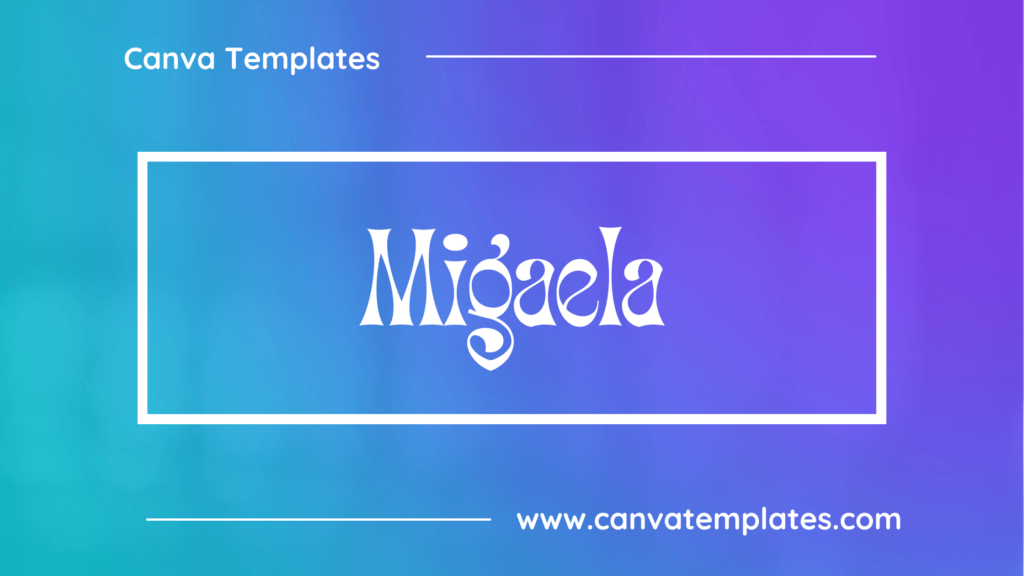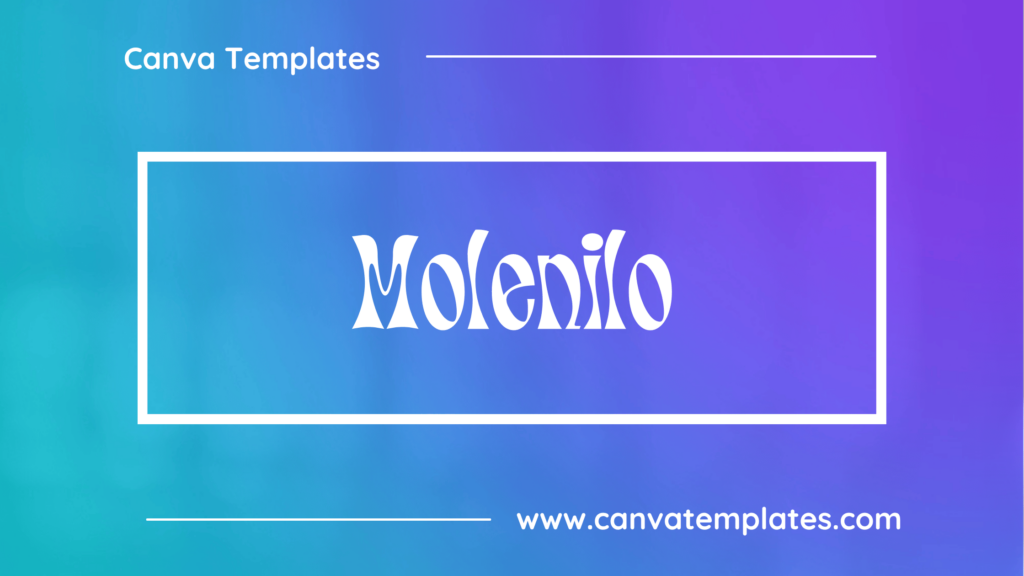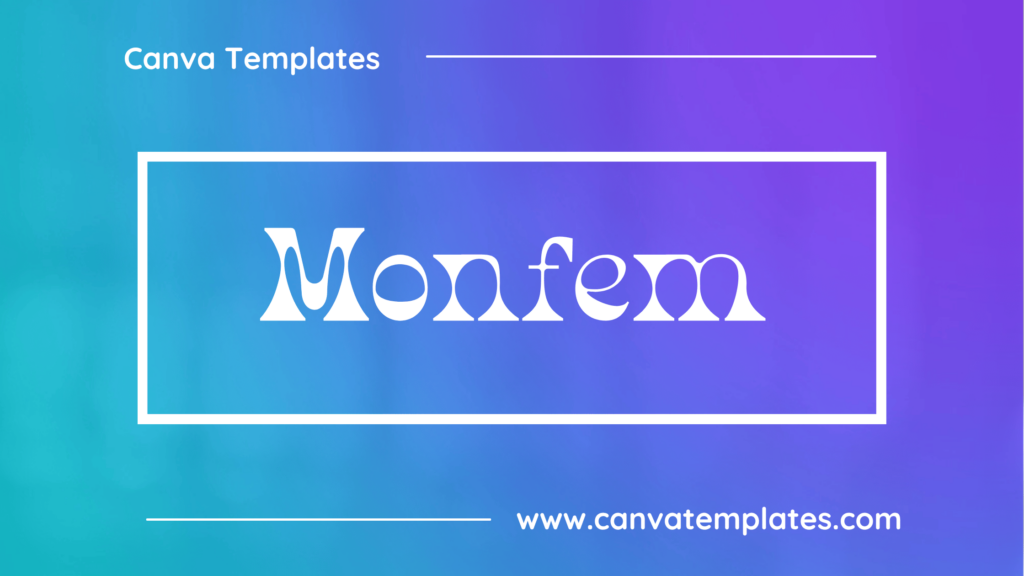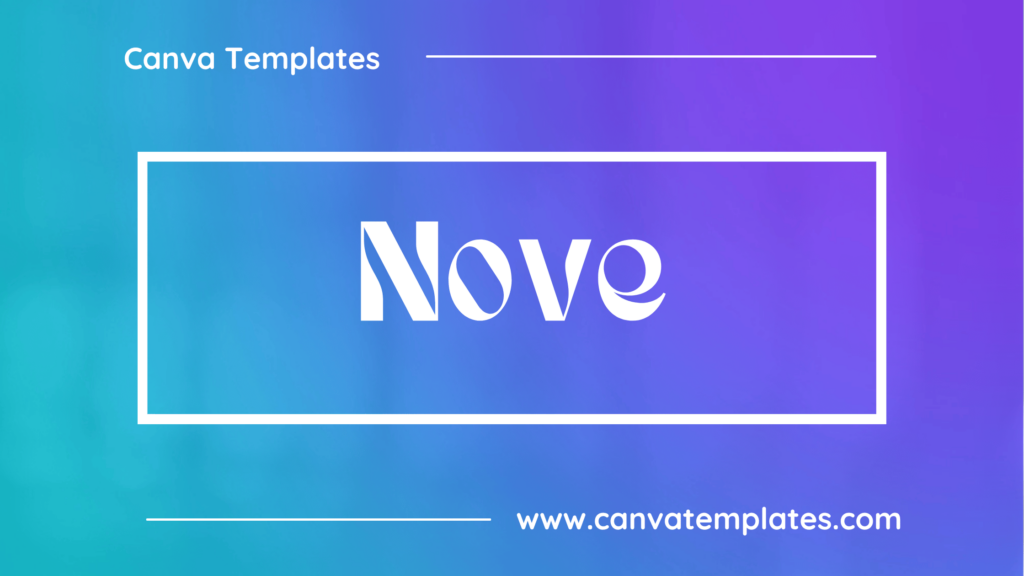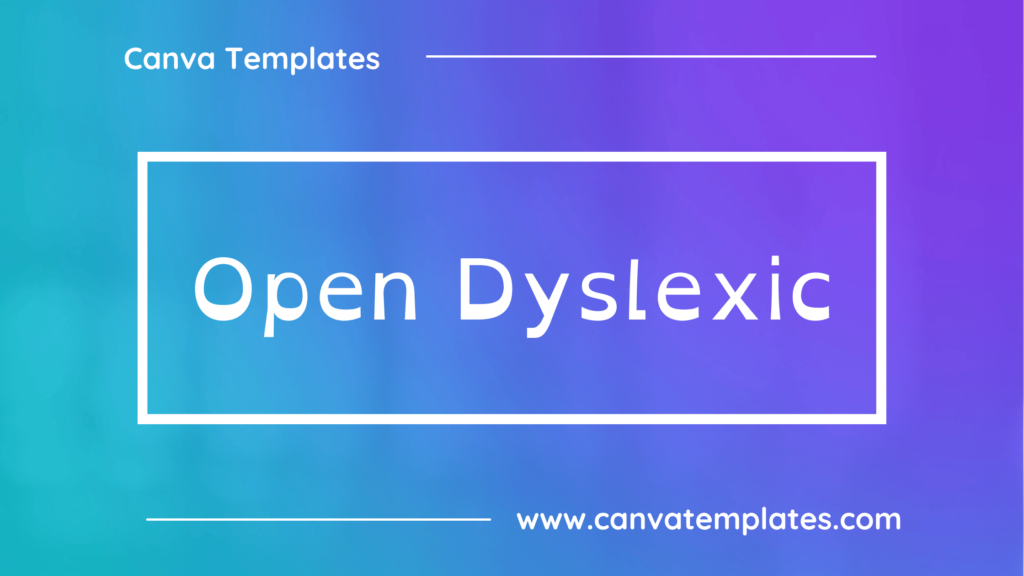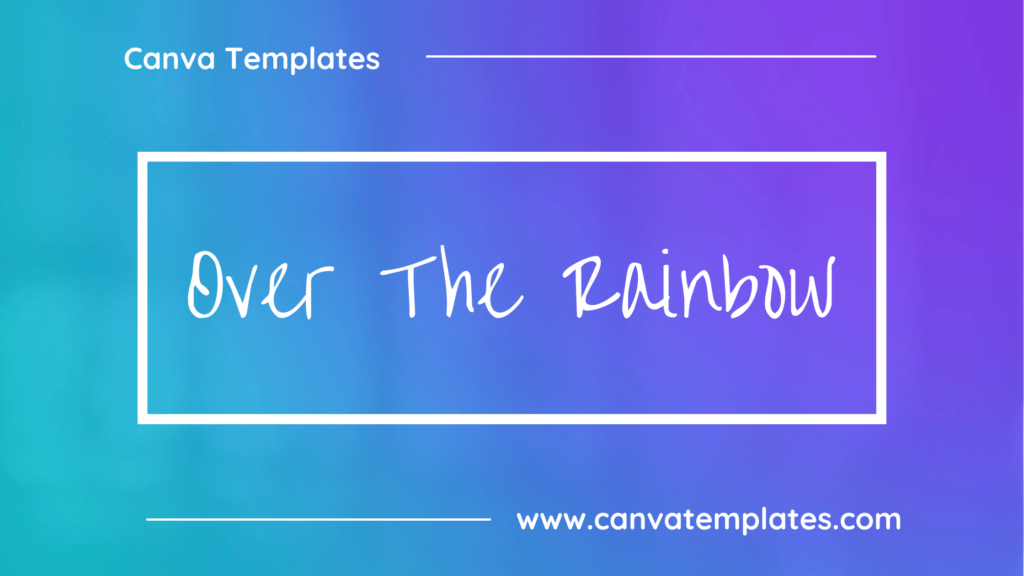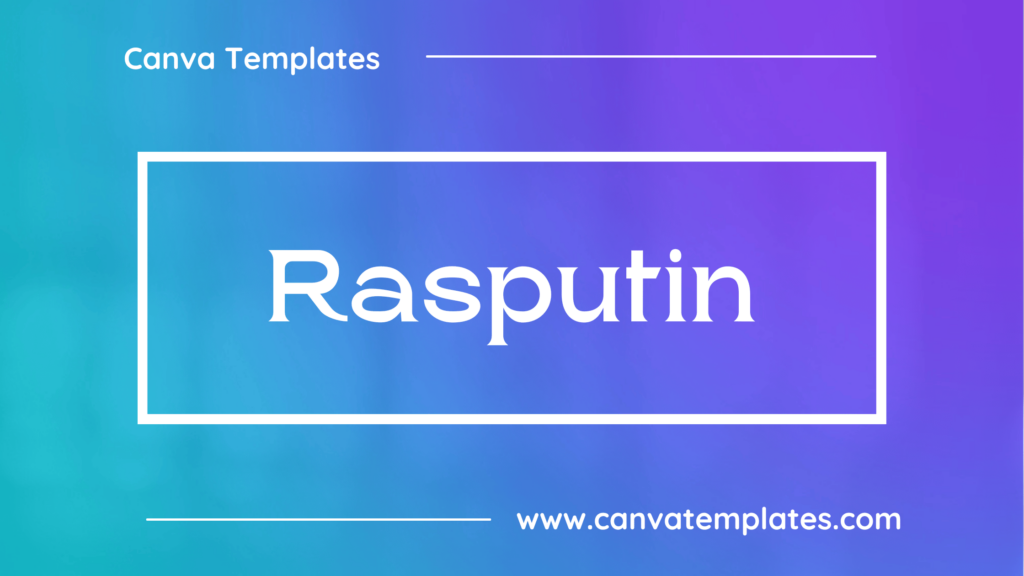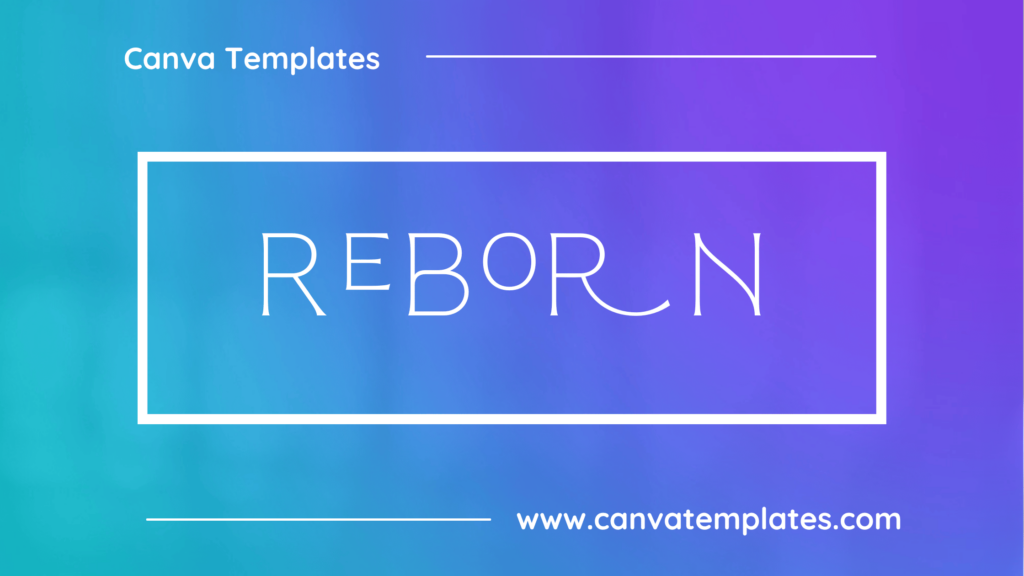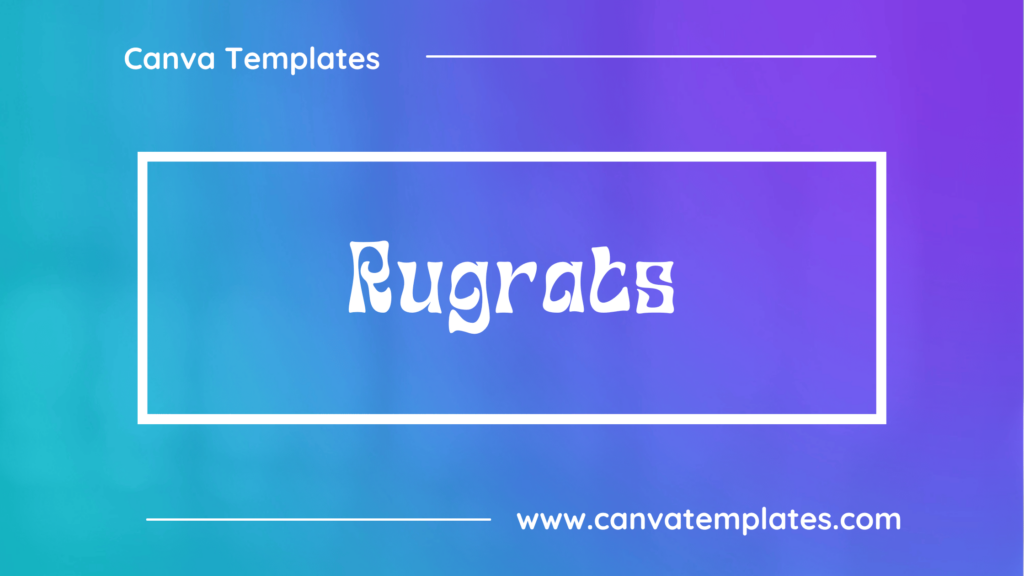
Best Dreamy Fonts in Canva
Great graphic design is powered by great font selection. But picking great fonts is a challenge most people. Luckily, Canva has made adding great fonts to your designs much easier. In this tutorial, our team of design experts will cover the best dreamy fonts in Canva.
What is a Dreamy Font?
Dreamy style fonts are fonts that are designed to create a whimsical and ethereal feel. Some characteristics of dreamy style fonts include:
1. Script or handwritten: Dreamy style fonts are often script or handwritten, with flowing and graceful letterforms that can create a sense of movement and lightness.
2. Soft edges: These fonts may have soft edges, with rounded corners and gentle curves that can convey a sense of dreaminess and softness.
3. Ornate: Dreamy style fonts can be ornate, with decorative flourishes and embellishments that can create a fanciful and mystical feel.
4. Pastel colors: Dreamy style fonts may be paired with pastel colors or other soft and muted hues, which can enhance the dreamy and ethereal feel.
5. Legibility: These fonts prioritize legibility and readability, even with their decorative elements and flowing letterforms.
6. Versatile: Dreamy style fonts can be used in a variety of designs, from invitations and greeting cards to branding and advertising materials.
Best Dreamy Fonts in Canva
1. Migaela
Migaela is a decorative display font with a playful and whimsical style. It features bold, chunky letterforms with rounded edges and a bubbly appearance. It is often used in designs that require a touch of fun and lightheartedness.
2. Molenilo
Molenilo is a clean and modern sans-serif font with a minimalist design. It features simple, geometric letterforms with clean, straight lines and a no-nonsense, business-like feel that is perfect for logos, headlines, and other graphic design projects.
3. Monfem
Monfem is a calligraphic script font with a flowing, elegant style. It features graceful, sweeping lines and has a romantic, feminine feel. It is often used in designs that require a touch of sophistication and elegance.
4. Nove
Nove is a sans-serif font with a clean, modern design. It features simple, geometric letterforms with clean, straight lines and a no-nonsense, business-like feel that is perfect for logos, headlines, and other graphic design projects.
5. Open Dyslexic
Open Dyslexic is a sans-serif font designed to make reading easier for people with dyslexia. It features unique letter shapes with heavy bottoms to help anchor the letters and make them easier to recognize.
6. Over The Rainbow
Over The Rainbow is a decorative display font with a whimsical, hand-drawn style. It features irregular, uneven letterforms with a playful appearance. It is often used in designs that require a touch of fun and lightheartedness.
7. Reborn
Reborn is a bold and expressive display font with a distressed, hand-drawn style. It features uneven, jagged lines and a grungy, textured appearance that is perfect for designs with a rebellious, edgy feel.
8. Rasputin
Rasputin is a decorative display font with an ornate, vintage-inspired style. It features intricate, filigree-like details and has a delicate, refined feel. It is often used in designs that require a touch of old-world charm and elegance.
9. Rugrats
Rugrats is a playful and informal script font with a bouncy, handwritten style. It features a mix of thick and thin strokes and has a slight slant to its letterforms, giving it a dynamic and energetic feel.
Tan Buster is a decorative display font with a bold, playful style. It features chunky, blocky letterforms with an irregular, hand-drawn appearance. It is often used in designs that require a touch of whimsy and fun.
Conclusion